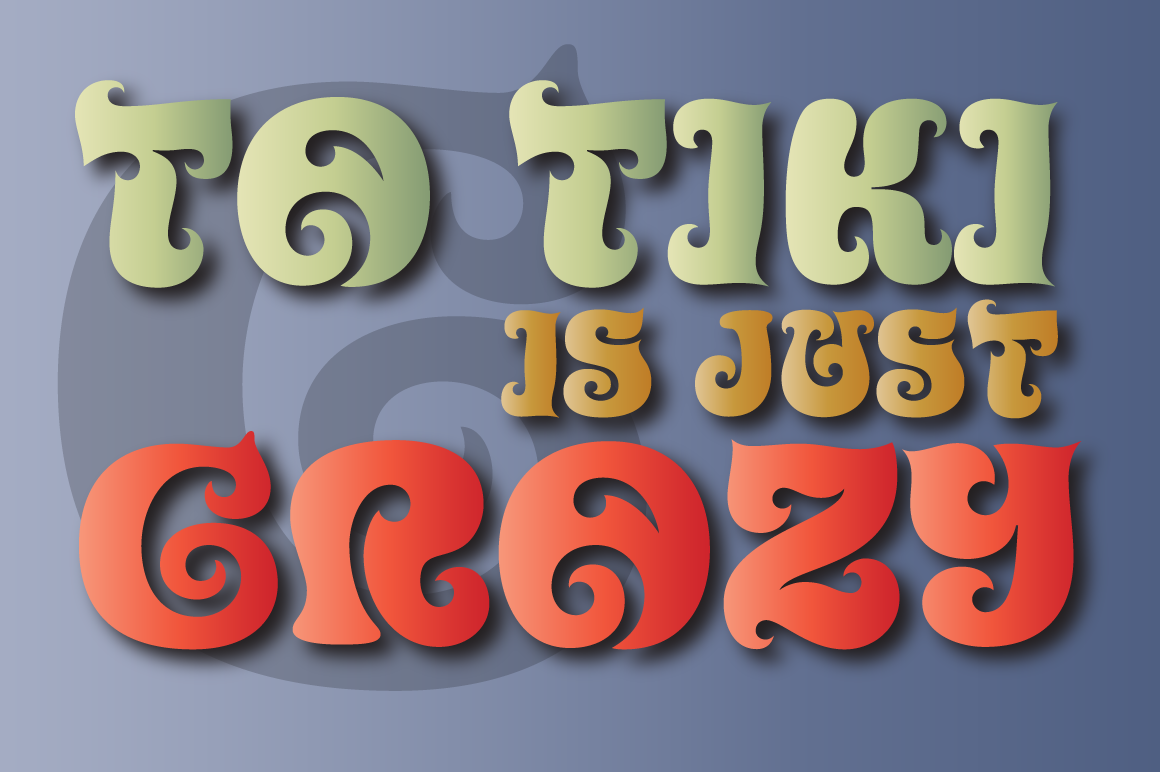
Discover the Unique Churchward Ta Tiki Font: A Maori-Inspired Typeface
In the realm of typography, few fonts manage to capture the essence of a culture as distinctively as the Churchward Ta Tiki font. Designed by the late Joseph Churchward, this typeface is part of a series of Maori style fonts that beautifully blend traditional Latin glyph forms with decorative elements inspired by Maori art. The result is a wildly organic design that stands out in any project, offering a unique aesthetic that is both culturally rich and visually striking.
The Creator: Joseph Churchward
Joseph Churchward was a typographer with a passion for exploring and integrating diverse cultural influences into his work. His fascination with Maori art and culture led to the creation of a series of typefaces that reflect the traditional designs of New Zealand’s indigenous people. Churchward Ta Tiki is one of his notable works, showcasing his ability to merge different stylistic elements into cohesive and functional typefaces.
Churchward Ta Tiki: A Maori-Inspired Typeface
Churchward Ta Tiki infuses the standard Latin alphabet with traditional Maori decorative elements, creating a typeface that is both familiar and exotic. The characters are adorned with intricate designs and patterns reminiscent of Maori carvings and tattoos, giving the font a distinctive and artistic feel. This unique blend makes Churchward Ta Tiki an excellent choice for projects that require a touch of cultural heritage and artistic flair.
Expanded Character Set for Versatility
To ensure versatility and usability, the Churchward Ta Tiki font has been expanded to support standard Latin character sets. This expansion allows designers and crafters to use the font in a wide range of projects, from digital media to print, without worrying about character limitations. Whether you’re working on a website, a brochure, or a craft project, Churchward Ta Tiki can be a valuable asset in your typographic arsenal.
Exploring Other Maori Style Fonts: Churchward Maori
For those interested in exploring more Maori-inspired typography, Churchward Maori is another font worth checking out. Like Churchward Ta Tiki, it is designed by Joseph Churchward and reflects his deep appreciation for Maori culture. Churchward Maori offers a slightly different take on Maori-inspired typography, providing an alternative for designers and crafters looking for a distinct look.
Applications of Churchward Ta Tiki
The unique aesthetic of Churchward Ta Tiki makes it suitable for a variety of applications. Here are a few ideas:
- Branding and Logo Design: The distinctive look of Churchward Ta Tiki can help brands stand out, especially those related to Maori culture, art, and heritage.
- Art and Craft Projects: Crafters and artists can use this font to add a cultural and artistic touch to their work, from handmade cards to sculptures.
- Web Design: Websites focused on cultural heritage, art, or New Zealand-related content can benefit from the unique charm of Churchward Ta Tiki.
- Print Media: Brochures, posters, and flyers can be made more engaging with the use of this eye-catching typeface.
Churchward Ta Tiki is more than just a font; it’s a bridge between cultures, a blend of tradition and modernity. For designers and crafters looking to infuse their projects with a unique and culturally rich aesthetic, Churchward Ta Tiki offers endless possibilities. Its wild, organic design and expanded character set make it a versatile and valuable tool for anyone aiming to create visually striking and culturally sensitive work.
Whether you’re drawn to its Maori heritage, its artistic flair, or its functional versatility, Churchward Ta Tiki is a font that can elevate your projects to a new level of creativity and cultural appreciation.